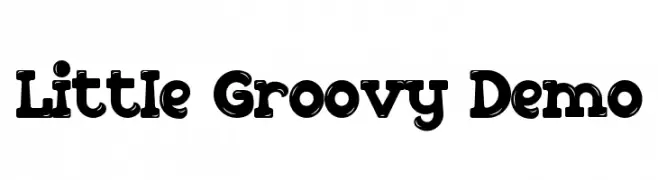
A bold, geometric font with a futuristic, angular design.
A bold, outlined, and slightly italicized font with a playful, retro-modern style.
A bold, geometric font with a striped, futuristic design.
A bold, rounded, and slightly italicized font with a playful and modern style.
A bold, rounded, and slightly italicized font with a playful and dynamic style.
A bold, italicized font with a chrome-like, three-dimensional appearance.
A bold, italicized font with a halftone effect, offering a modern and dynamic look.
A futuristic, bold, and italic font with smooth, rounded characters and high contrast.
A playful, bold outline font with rounded, bubble-like shapes.
A bold, rounded font with a playful and modern aesthetic.
A bold, smooth, and italicized font with a modern and playful style.
A bold, geometric font with a halftone effect, offering a retro-futuristic style.
A bold, smooth, and condensed italic font with a modern and playful style.
A playful, bold outline font with a smooth, italicized style.
A bold, playful font with rounded edges and a smooth, flowing style.
A bold, italicized font with a gradient effect created by horizontal lines.
A bold, futuristic font with rounded edges and a sleek, modern design.
A bold, rounded, semi-italic font with a playful and modern style.
A bold, retro-inspired font with rounded, outlined characters.
A playful, bold 3D font with rounded edges and a cartoonish style.
A bold, striped font with a futuristic and dynamic design.
A bold, 3D italic font with smooth, rounded edges and a retro vibe.
A bold, geometric font with a modern, tech-inspired design.
A bold, geometric font with a modern, futuristic style.
A geometric, angular font with a modern, edgy style.
A geometric, hollow font with a futuristic and angular design.
A bold, angular, and slightly italicized font with a modern, futuristic style.
A bold, italic, and geometric font with a modern and dynamic style.
A whimsical, ghost-themed decorative font with playful, animated characters.
A playful, ghost-themed decorative font with bold, fluid characters.
A bold, decorative font with playful patterns and a retro vibe.
A bold, playful font with rounded, irregular letterforms.
A playful, ghost-themed decorative font with unique character designs.
A geometric, hollow font with angular lines and a modern, futuristic style.